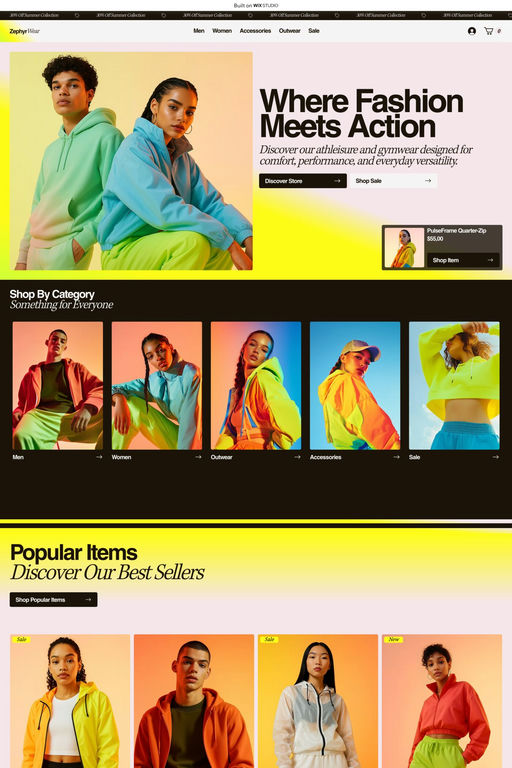
Kepler is a serif typeface from Adobe.
Named after the German Renaissance astronomer, Kepler is a contemporary type family created by Adobe type designer Robert Slimbach in the tradition of classic modern 18th-century typefaces. Traditionally, modern typefaces are known for their cool intellectual quality, but Slimbach’s Kepler captures the modern style in a humanistic manner.